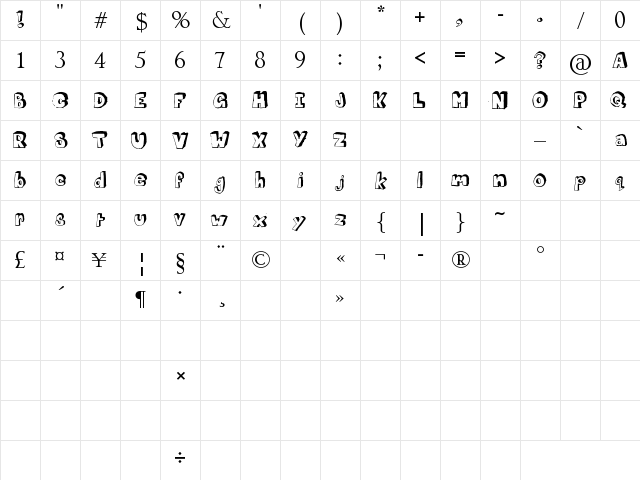
Mathematics Boredom Regular
Design Context for Mathematics Boredom
Mathematics Boredom is a composed and adaptable typeface that performs quietly and consistently across a wide range of design contexts.
Pro Tip: Use Mathematics Boredom in both headline and body roles to test its range before committing to a single application.